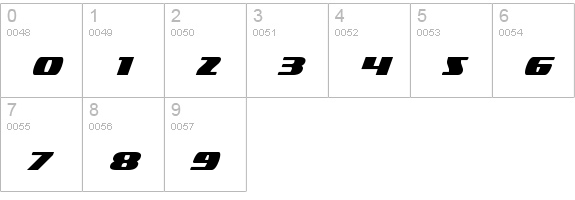
Americorps font is a versatile and modern typeface that exudes sophistication and elegance. With its clean lines and bold lettering, Americorps font is perfect for a wide range of design projects, from branding to editorial design. The font features a sleek and contemporary style that will make your text stand out and grab attention.
Whether you're working on a logo, website, or print materials, Americorps font is sure to make a statement and leave a lasting impression. Download Americorps font today and add a touch of sophistication to your designs.